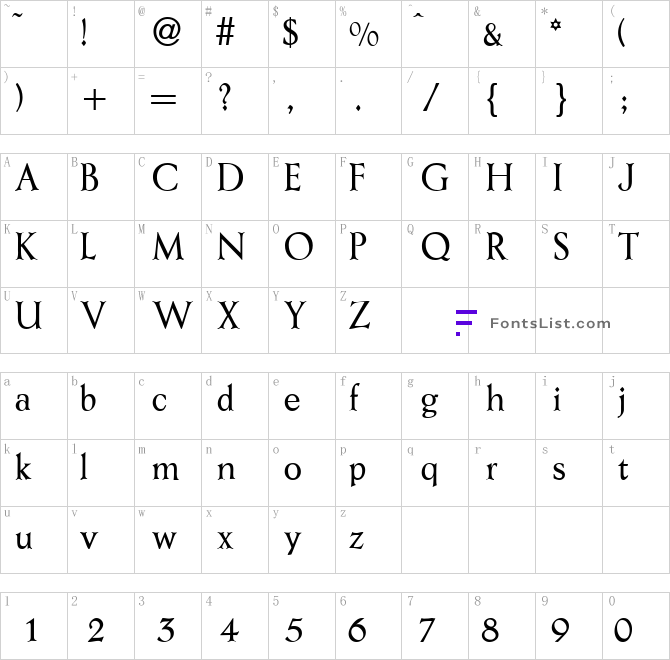
AeroDB-Normal.ttf is a very beautiful artistic font, AeroDB-Normal.ttf is widely used in the design and printing of various books and pictures,AeroDB-Normal.ttf has a strong visual impact,AeroDB-Normal.ttf is a commonly used font in newspapers, magazines and books, and is used in posters, e-commerce Poster design, store design, logo design, font design and other fields.AeroDB-Normal.